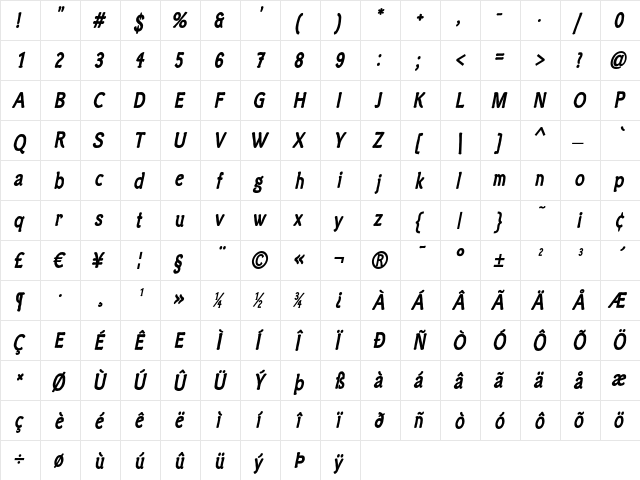
Clichee Bold Italic Font Preview
| Foundry | Frantisek Storm |
Design Context for Clichee Typeface
Clichee takes a measured approach to typography — its balanced proportions and neutral character make it a reliable workhorse for both digital and print work. The dynamic lean of this cut emphasises speed and emphasis in any layout. Its bold stroke weight gives it real presence on the page.
Pro Tip: Try Clichee for annotation and caption copy alongside an upright companion — the contrast in angle creates a dynamic but ordered typographic system.